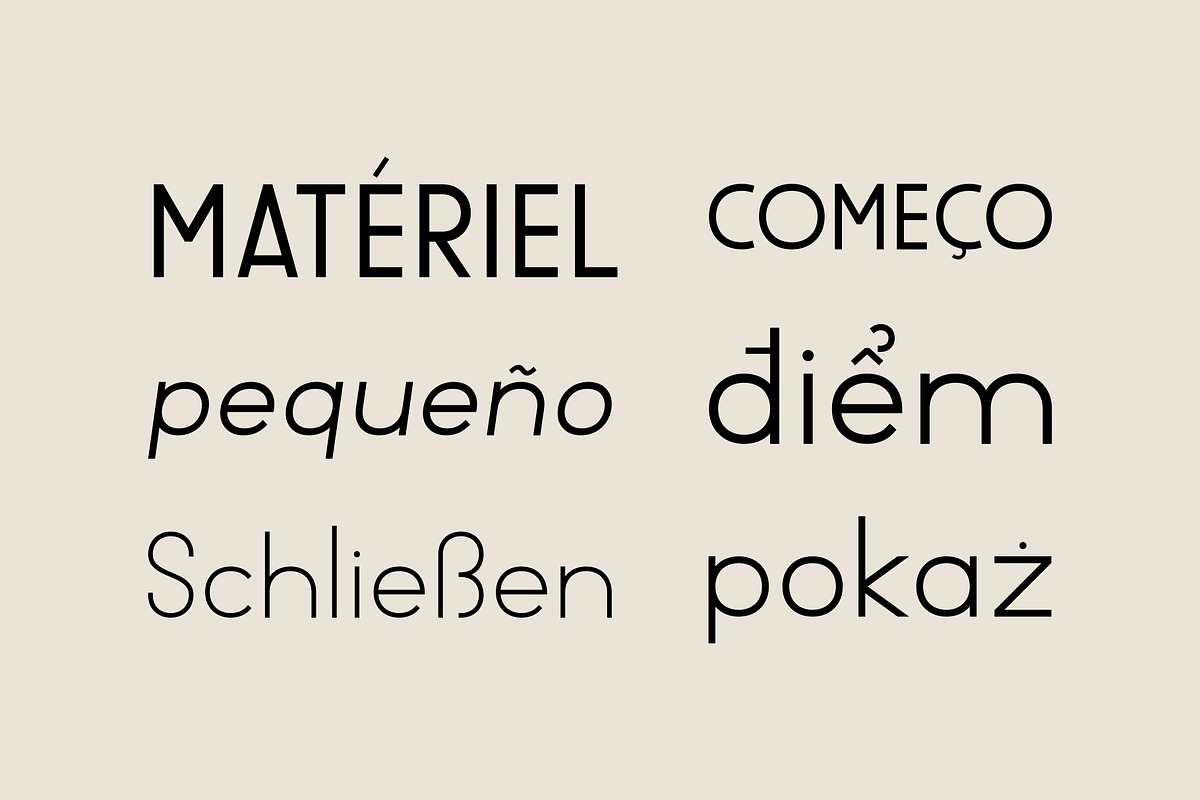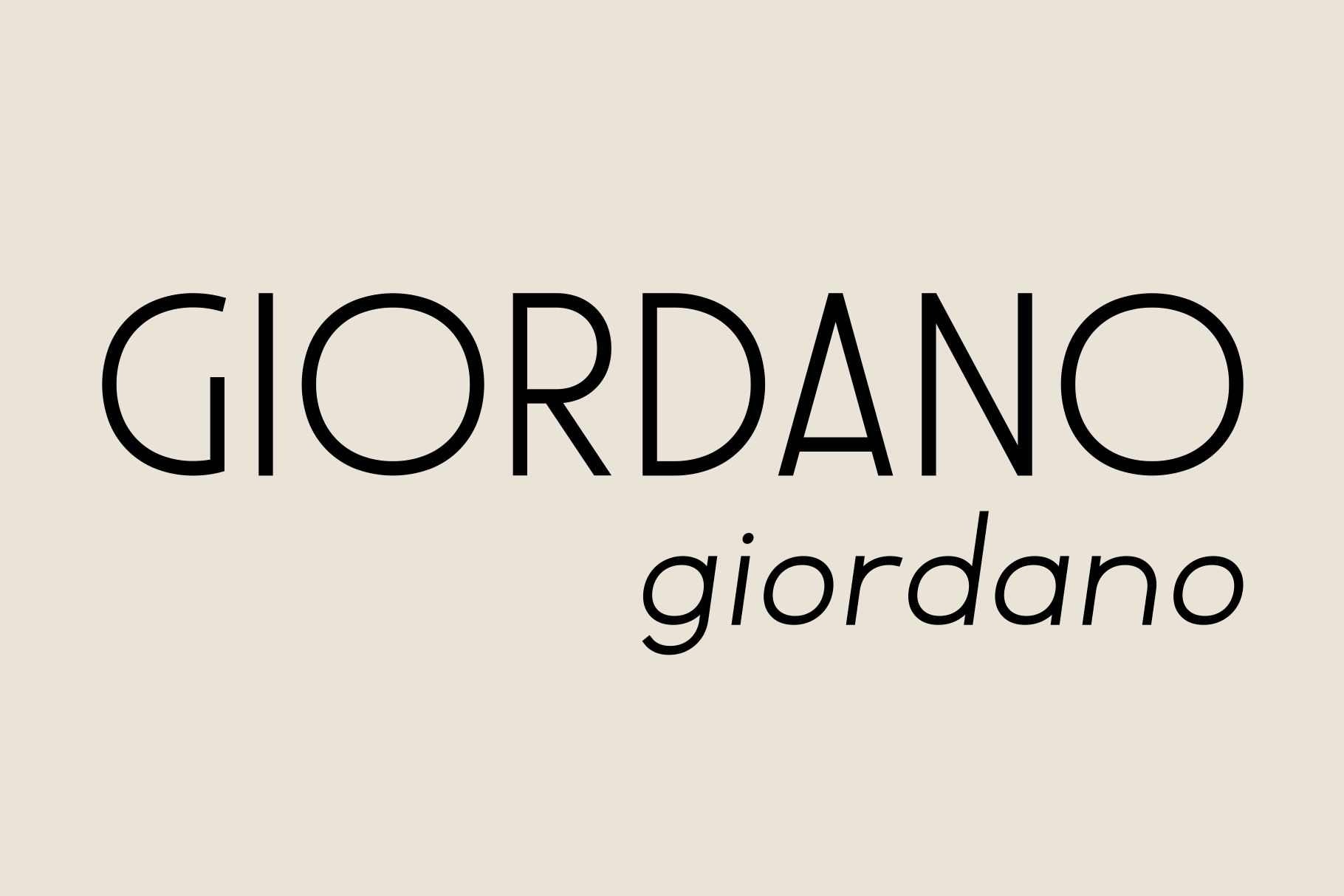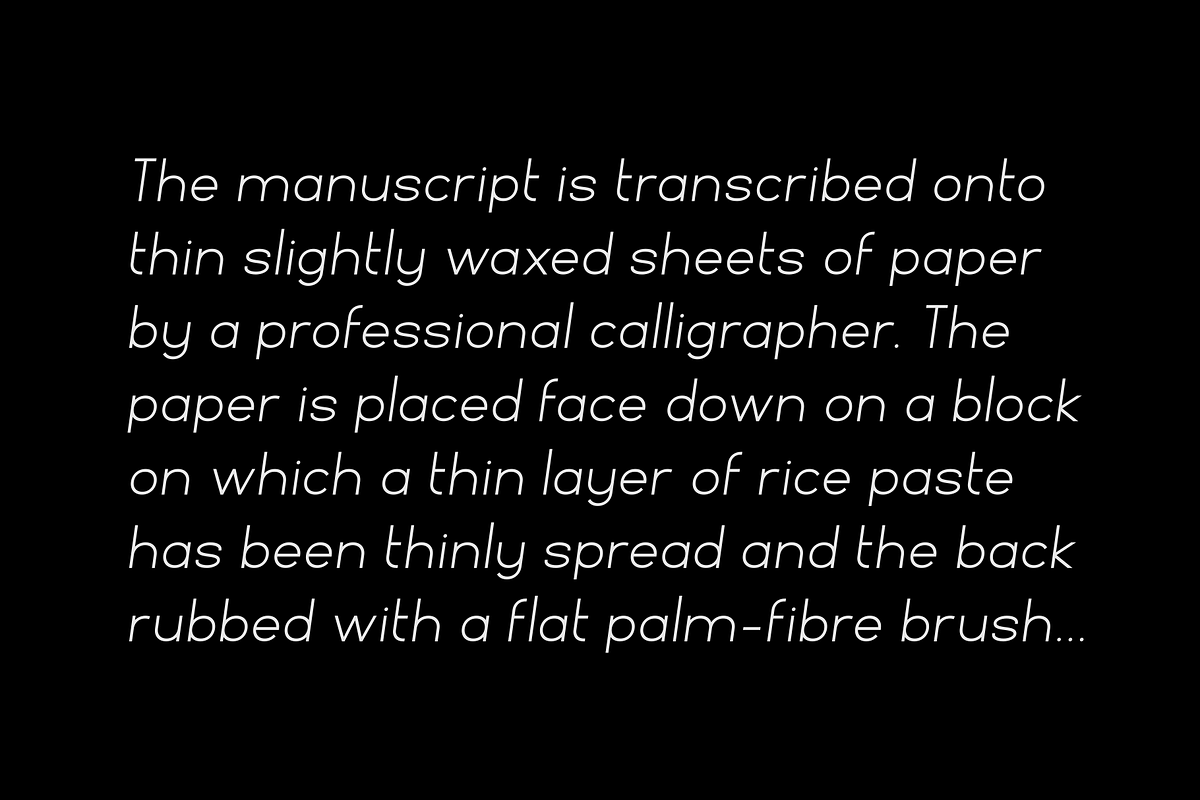
Giordano – Font Family
Giordano is a font family alternating between rectangular and circular forms.
• 113 Languages • 483 Glyphs • 5 Weights • 5 Styles